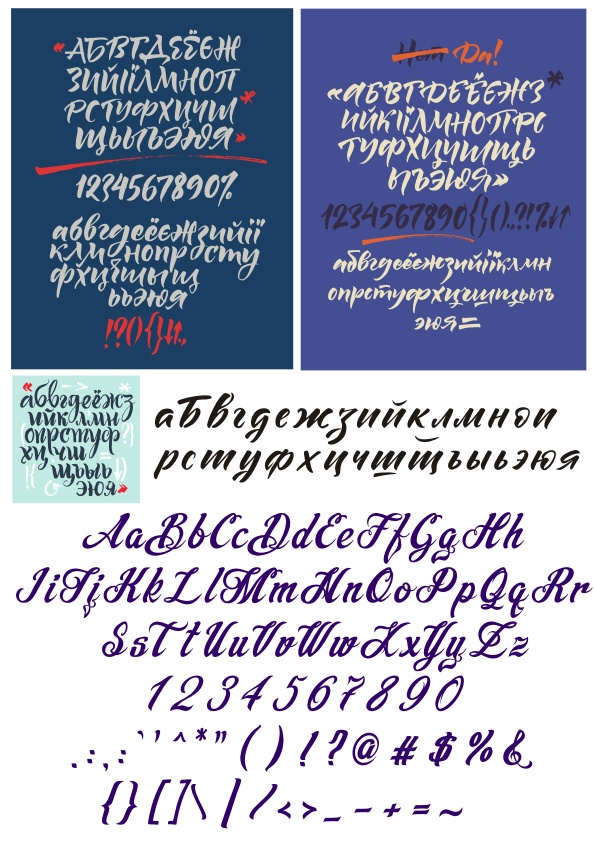
Handwritten Cyrillic and Latin Calligraphy Font Samples with Numerals and Symbols Free Vector
Vector image showcasing multiple handwritten calligraphy font samples including uppercase and lowercase Cyrillic and Latin alphabets, numerals, and various punctuation and symbols displayed on colored backgrounds.